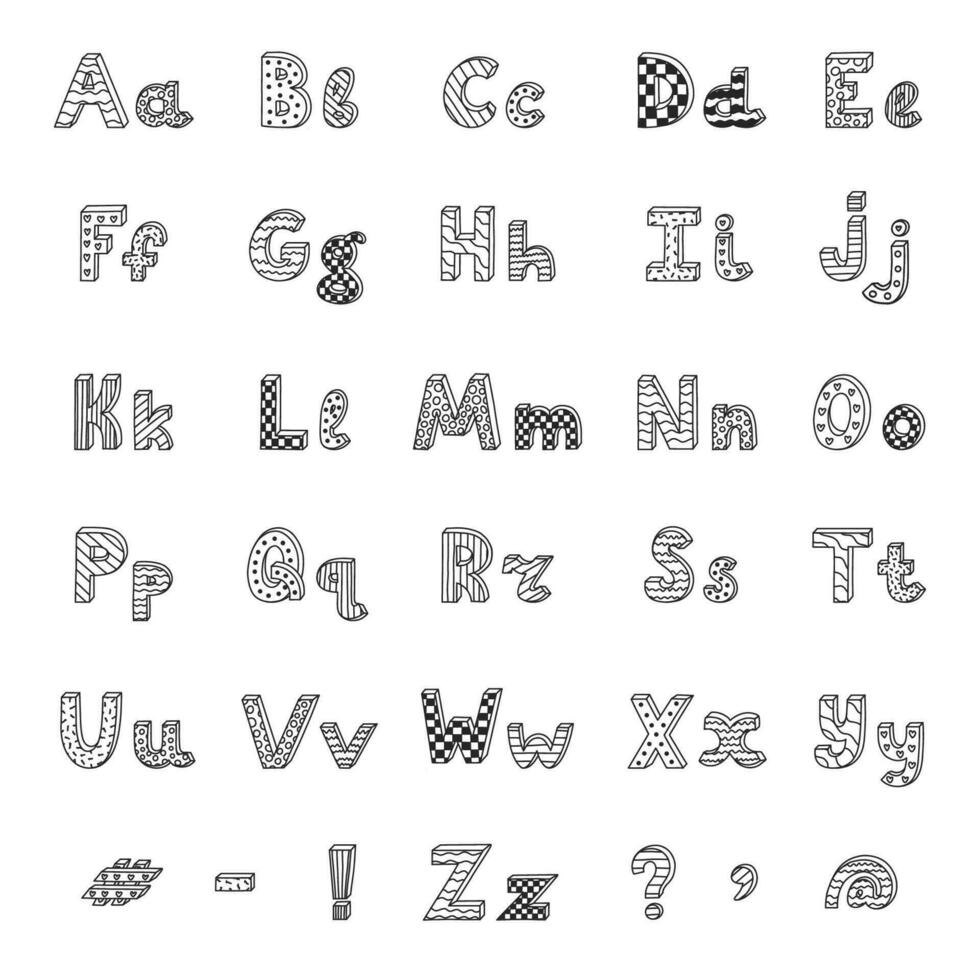
Cute doodle 3d alphabet set with hand drawn outline and memphis decoration. Patterned bold black and white font with shadow. Funny latin ABC with uppercase and lowercase letters, punctuation marks Pro Vector